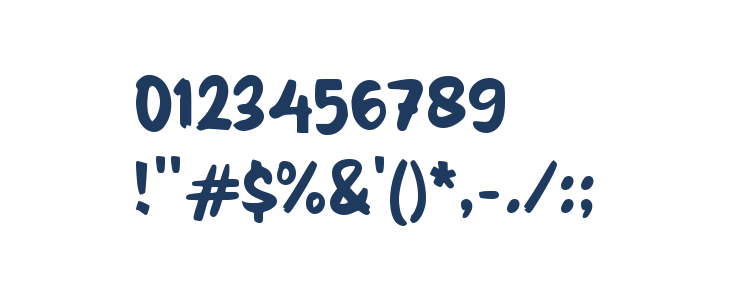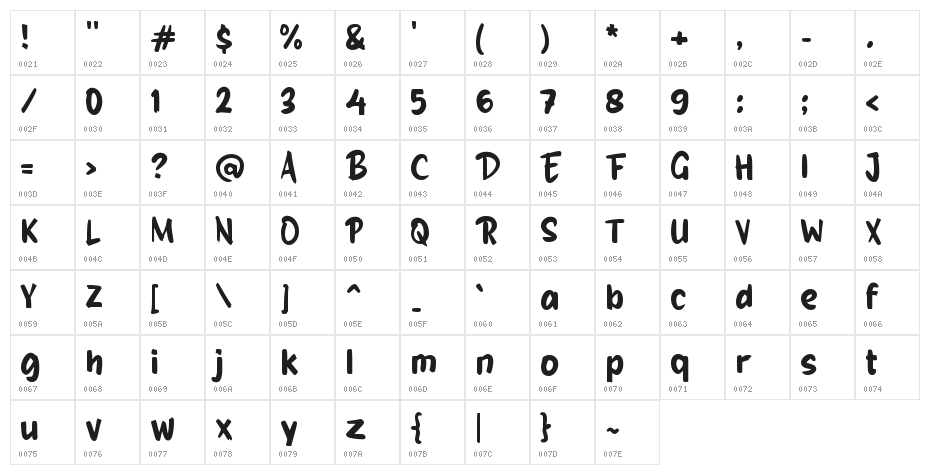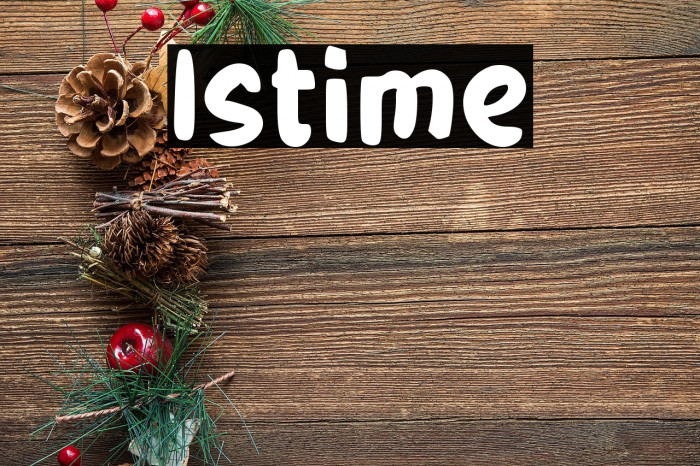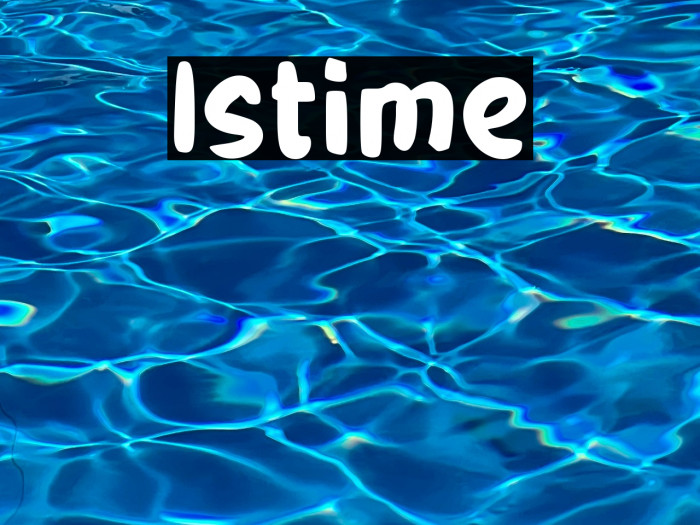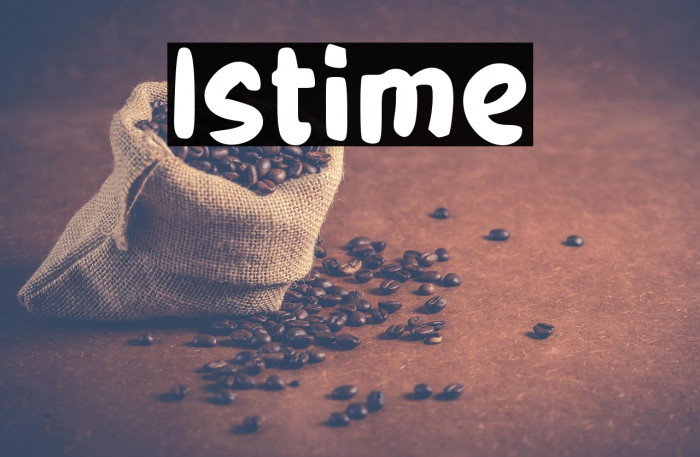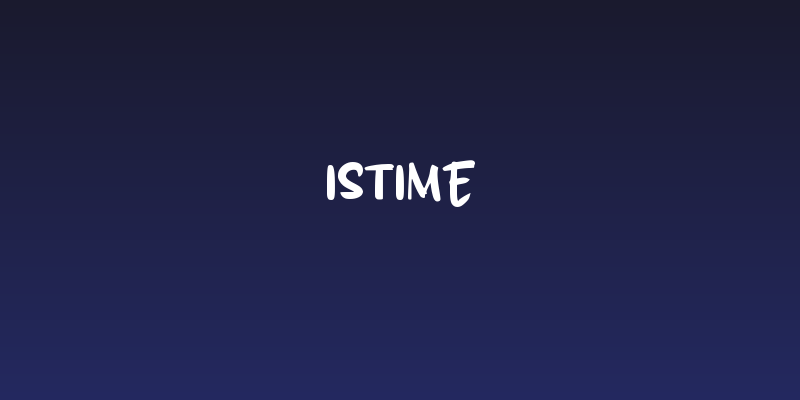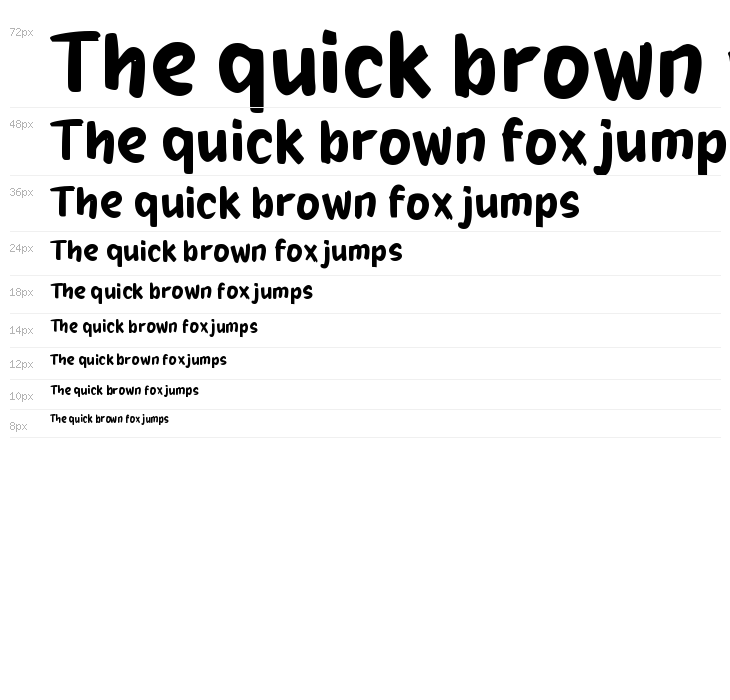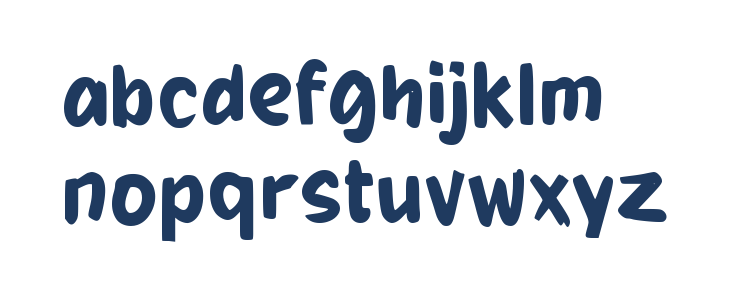
Istime Font
Istime Description
This font features a playful and bold handwritten style, characterized by its thick strokes and slightly irregular shapes. The letters have a casual, informal appearance, with rounded edges and a consistent weight throughout. The uppercase and lowercase letters maintain a uniform look, while the numerals and special characters complement the overall design. This font exudes a friendly and approachable vibe, making it suitable for creative and fun projects.
ISTIME UPPERCASE
ISTIME LOWERCASE
ISTIME OTHER CHARS
| Proposed Projects | Ideal for children's books, greeting cards, playful branding, and social media graphics. |